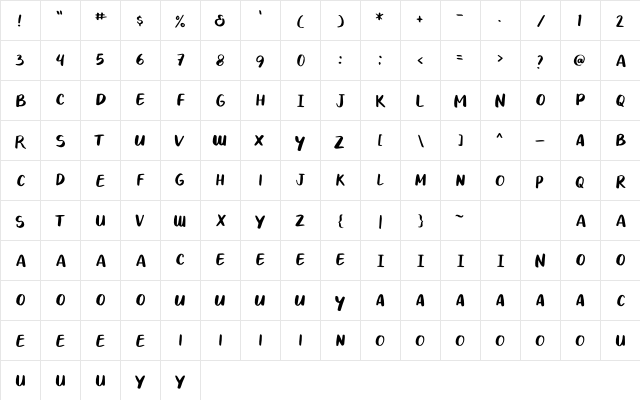
Nothing For You Regular
Design Context for Nothing For You Typeface
Nothing For You is a composed and adaptable typeface that performs quietly and consistently across a wide range of design contexts. Its slender proportions lend an understated elegance to any composition.
Pro Tip: Pair Nothing For You with a font of contrasting weight or personality to build a more expressive typographic hierarchy.